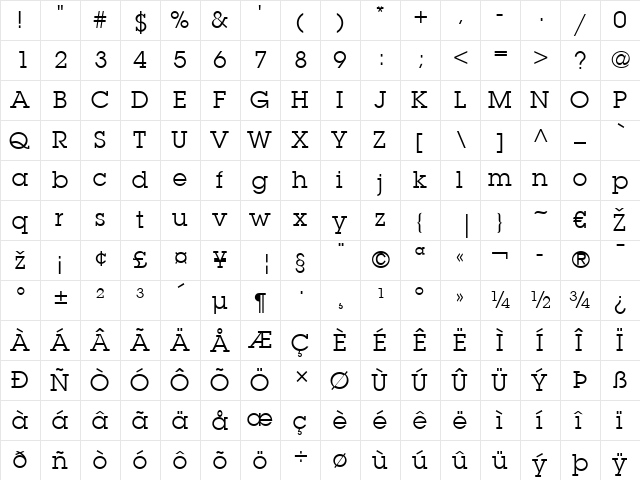
LubalinGraph LT Regular
Design Context for LubalinGraph LT Typeface
LubalinGraph LT is a composed and adaptable typeface that performs quietly and consistently across a wide range of design contexts. Its slender proportions lend an understated elegance to any composition.